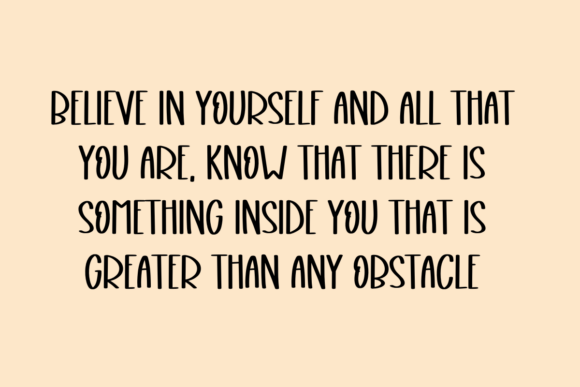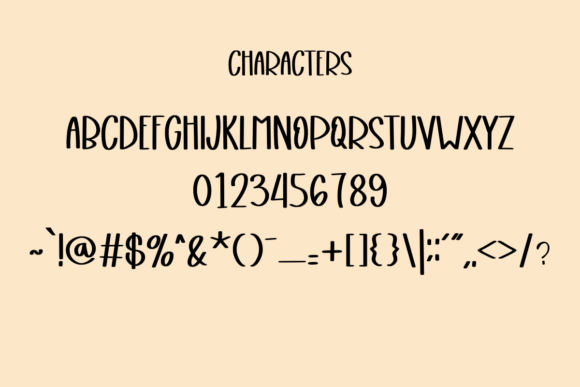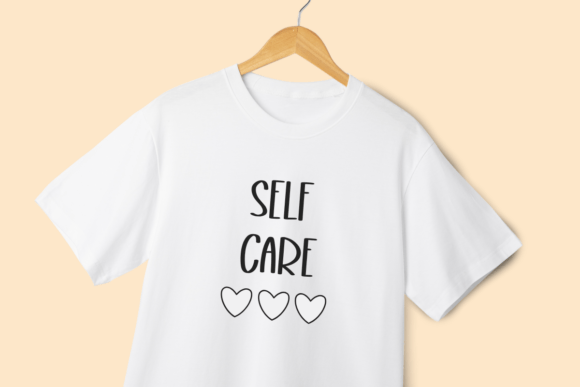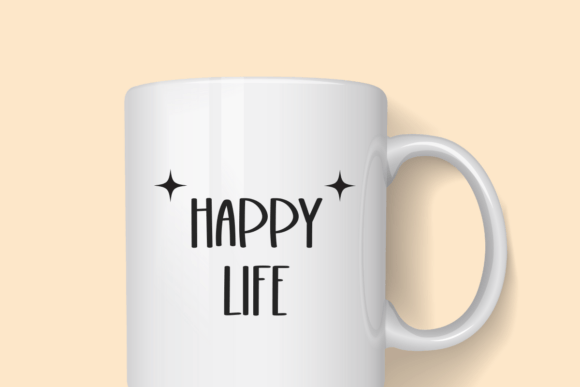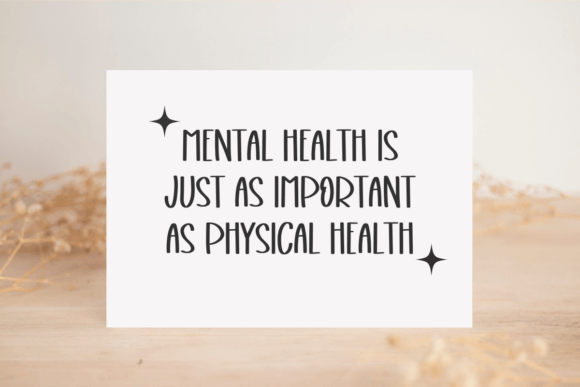
Introduction to Design Shiny Font
You know that moment when you’re working on a creative project and you just can’t seem to find the right font to bring it all together? The words just aren’t popping, the text is dull, and you’re about to lose your mind trying to find the perfect design resource. Well, put down the coffee and take a deep breath because we’ve got you covered.
Meet the Design Shiny Font, a fun and unique sans serif font that’s sure to add some high quality flair to your designs. Its natural and transparent background style makes it incredibly versatile, fitting perfectly into a wide range of creative projects.
Key Features of Design Shiny Font
- High-quality, scalable design resource suitable for various creative projects, including logos, icons, and graphics.
- Transparent background option, allowing for seamless integration into any design or layout.
- Unique, eye-catching design that adds a touch of sophistication and elegance to any creative project.
- Easy to customize and edit, thanks to its vector-based design, allowing for endless possibilities and variations.
Honest Review: Design Shiny Font
I recently stumbled upon the Design Shiny Font and was excited to see if it lived up to its name. As a designer, I’m always on the lookout for high-quality design resources that can elevate my creative projects.
Here’s what I liked about Design Shiny Font:
- ✨ The font is incredibly versatile and can be used in a variety of creative contexts, from logos to social media graphics.
- ✨ The transparent background makes it easy to use in complex compositions without worrying about distractions.
However, I did encounter a few limitations with Design Shiny Font:
- ⚠️ The font could benefit from more stylistic options, such as bold and italic variants.
- ⚠️ Some users may find the font to be a bit too flashy or attention-seeking, which could be a drawback in certain design contexts.
Overall, I was impressed with Design Shiny Font and would definitely consider using it in my future creative projects. While it may not be perfect, it’s a solid addition to any designer’s toolkit.
Design Shiny Font
Design Shiny Font is a high-quality design resource ideal for creative projects. Its sleek and modern style makes it perfect for various applications.
- Experiment with different font sizes and styles to create a visually appealing design.
- Combine Design Shiny Font with other high-quality design resources for a cohesive look.
- Use the font in creative and innovative ways to stand out from the crowd.
Design Shiny Font is commonly used in:
- Advertising and marketing materials
- Print materials, such as business cards and brochures
Yes, the Design Shiny Font is designed to be versatile and can be paired with other fonts to create a unique and visually appealing design. When combining fonts, it’s essential to consider the font’s style, size, and color to ensure a cohesive and high-quality design.